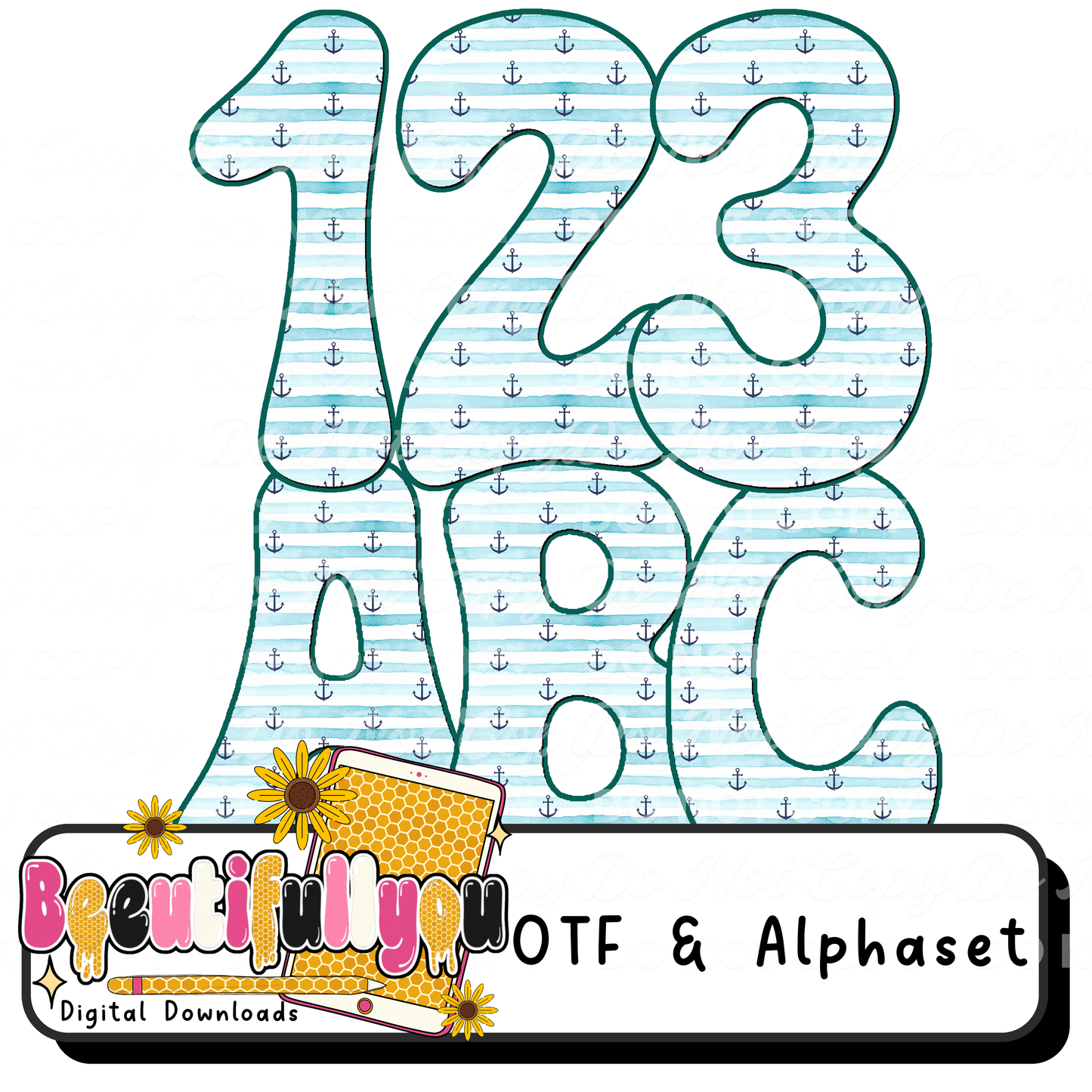
Coastal Anchor Font OTF + PNG Alphabet | Nautical Bubble Letters | Beach Preppy Font | Summer Anchor Alphabet | Font
⚓️🌊 The perfect beachy + preppy font for summer!
This nautical-inspired font features soft blue stripes with tiny anchor details, giving you that clean coastal aesthetic that’s trending HARD right now.
Perfect for lake days, beach trips, and boutique summer collections!
✔ Soft rounded bubble lettering